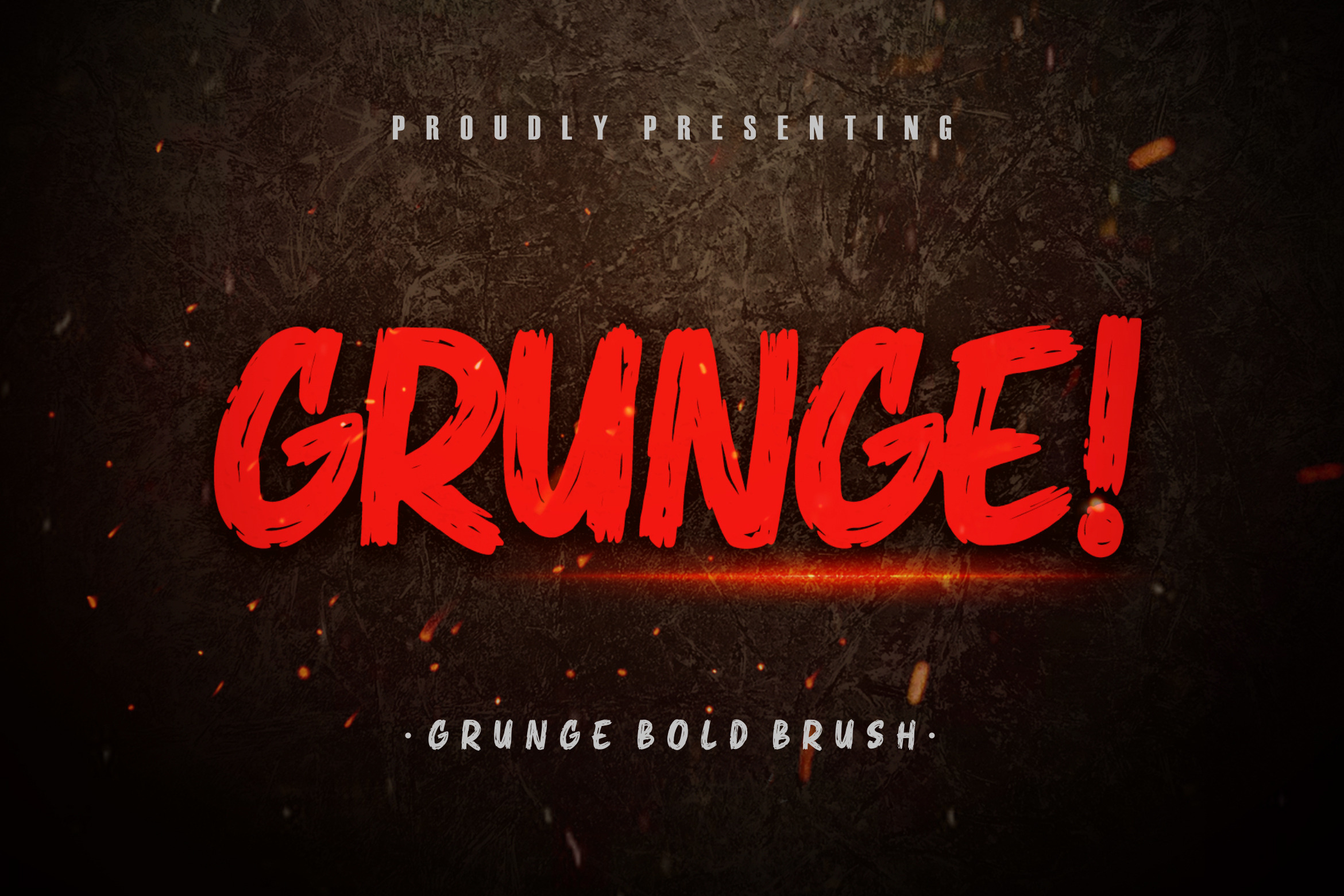
Grunge! Bold Brush Typeface
Grunge! is a grunge, metal and rock & roll font for music concert events.
Grunge! is perfect for branding projects, logo, wedding designs, social media posts, advertisements, product packaging, product designs, label, photography, watermark, invitation, stationery and any projects that need handwriting taste.